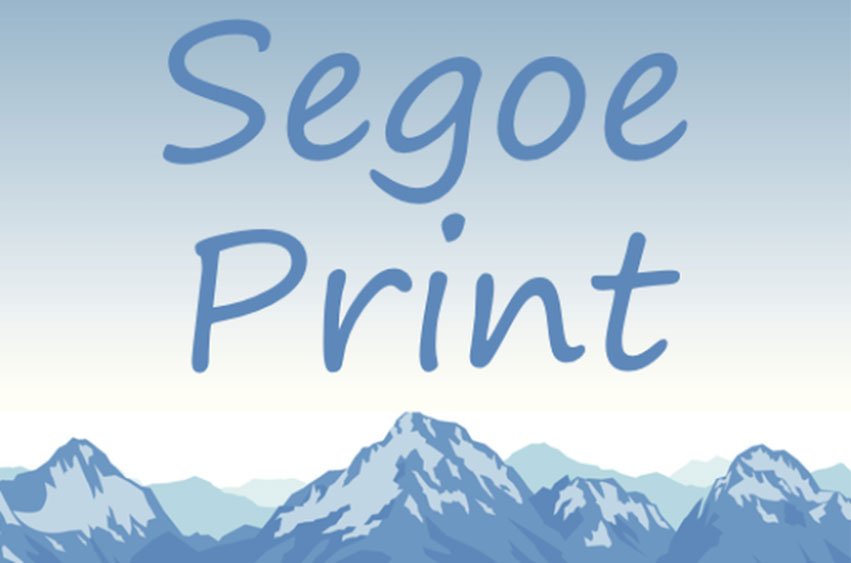
Segoe Print Font family was developed by Microsoft and this family has Segoe Print with 2 font styles. It is the easy on the eye, clear and legible handwriting script font that has simple lettering with no flourishes that are often characteristic of cursive script fonts. Including Latin-1 characters, WGL Pan-European (Eastern Europe), the Cyrillic character set (Including Cyrillic Greek and Turkish characters).
This font is a part of the handwritten calligraphy font family and thus has its characteristic style jotted down in its font format, and it can be used on websites or any form of documents and can also be printed.